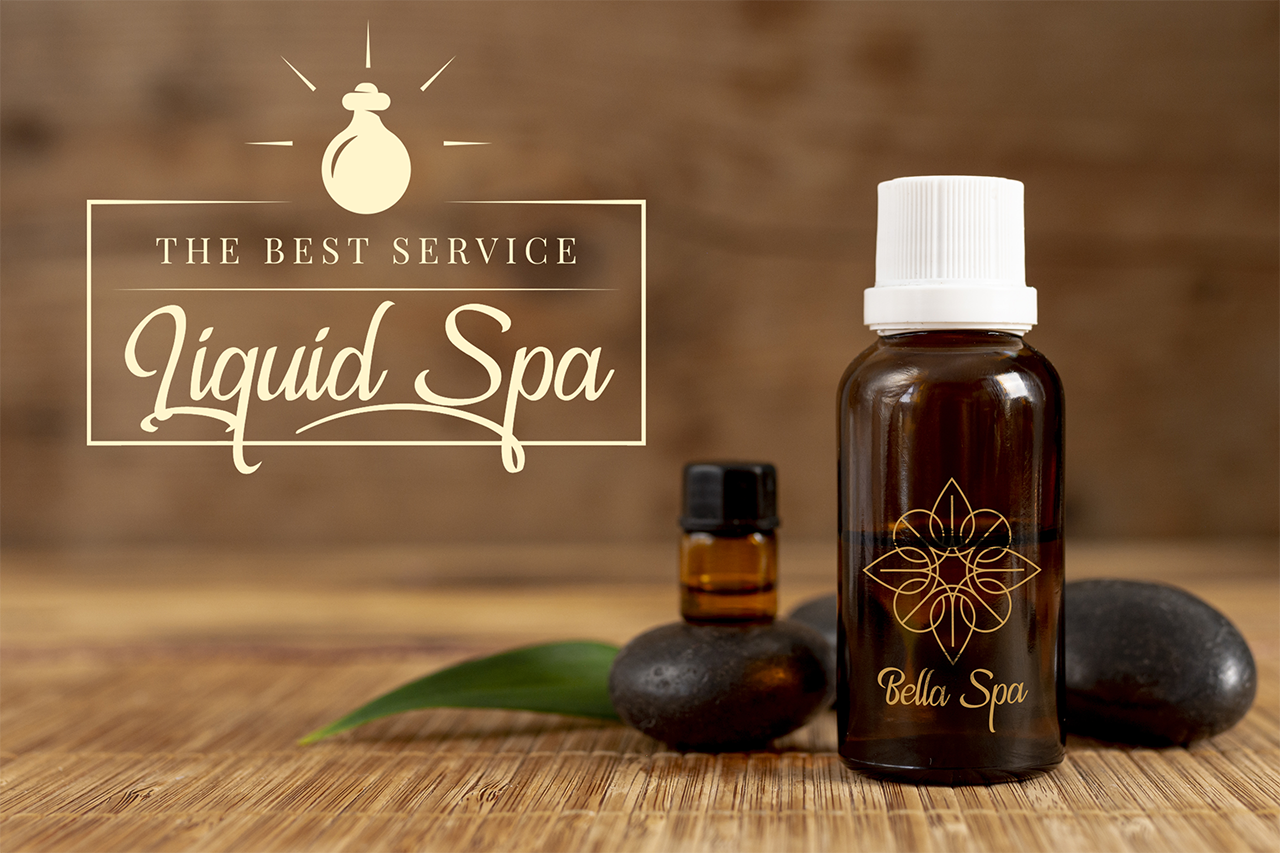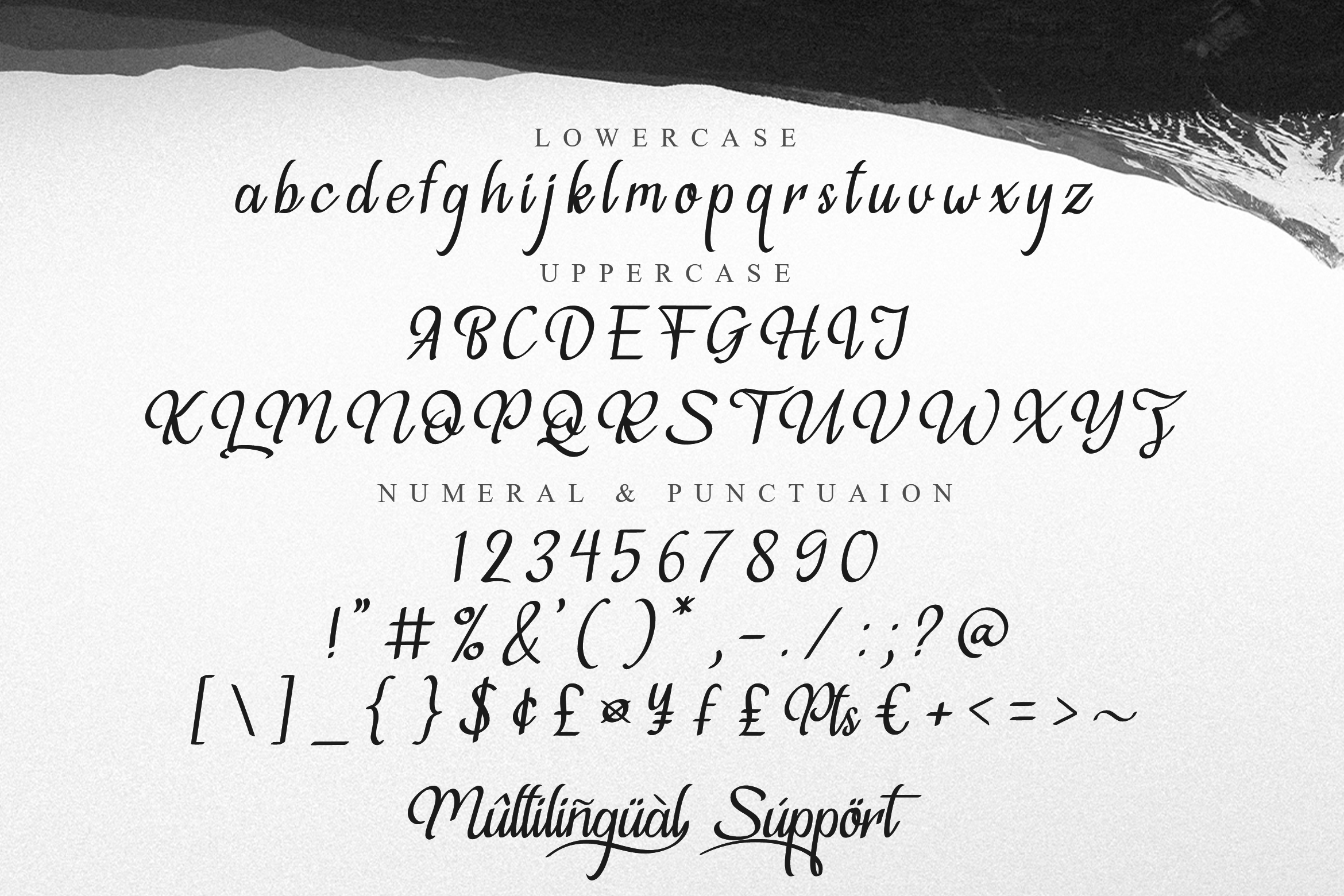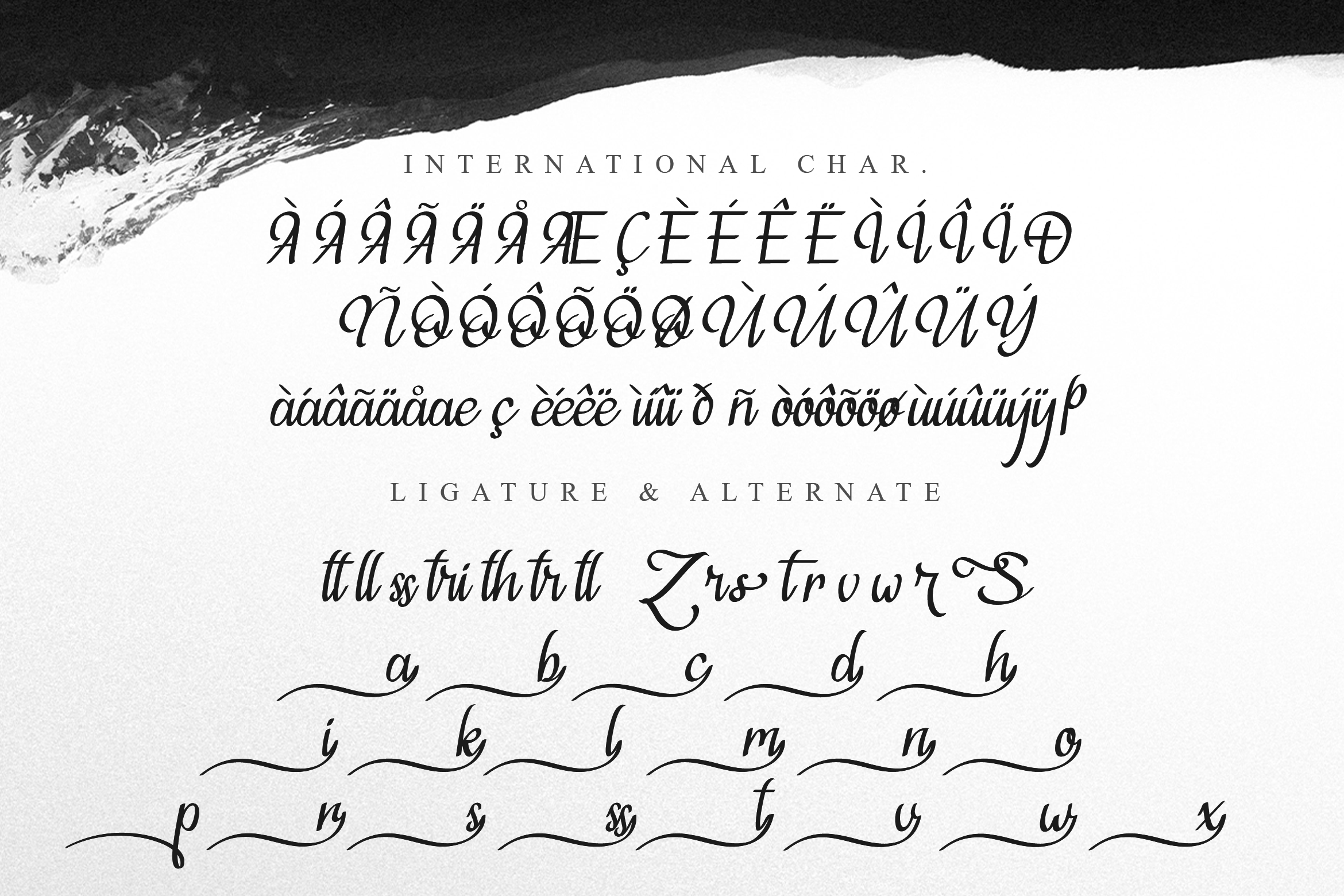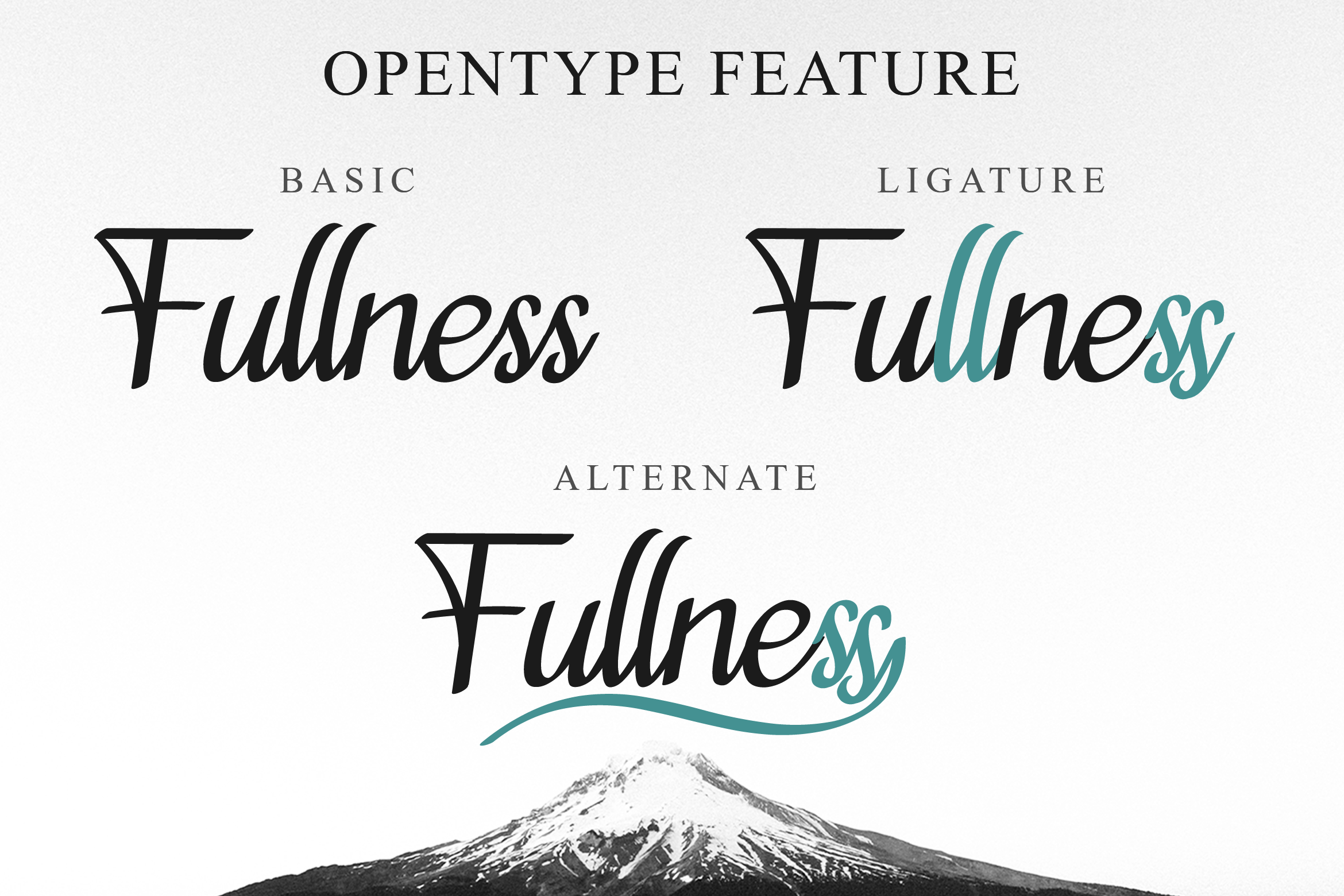
Violleva Free Font
Violleva Free Font is an elegant and modern calligraphy font with clean style finishing,  so it is great for branding logos, t-shirt designs, posters, business cards, typography, newspapers, other design projects, and many other media that can be manipulated with this font. Violleva will turn any creative idea into a true piece of art. This free typeface was designed by talented Abas Creative. If you like it don’t forget to check out the full version.